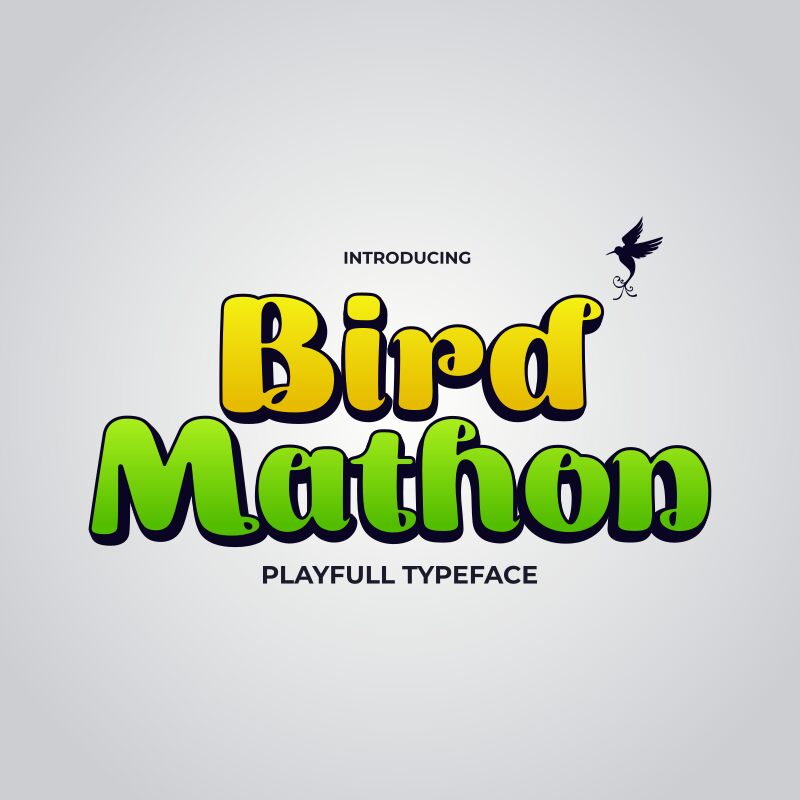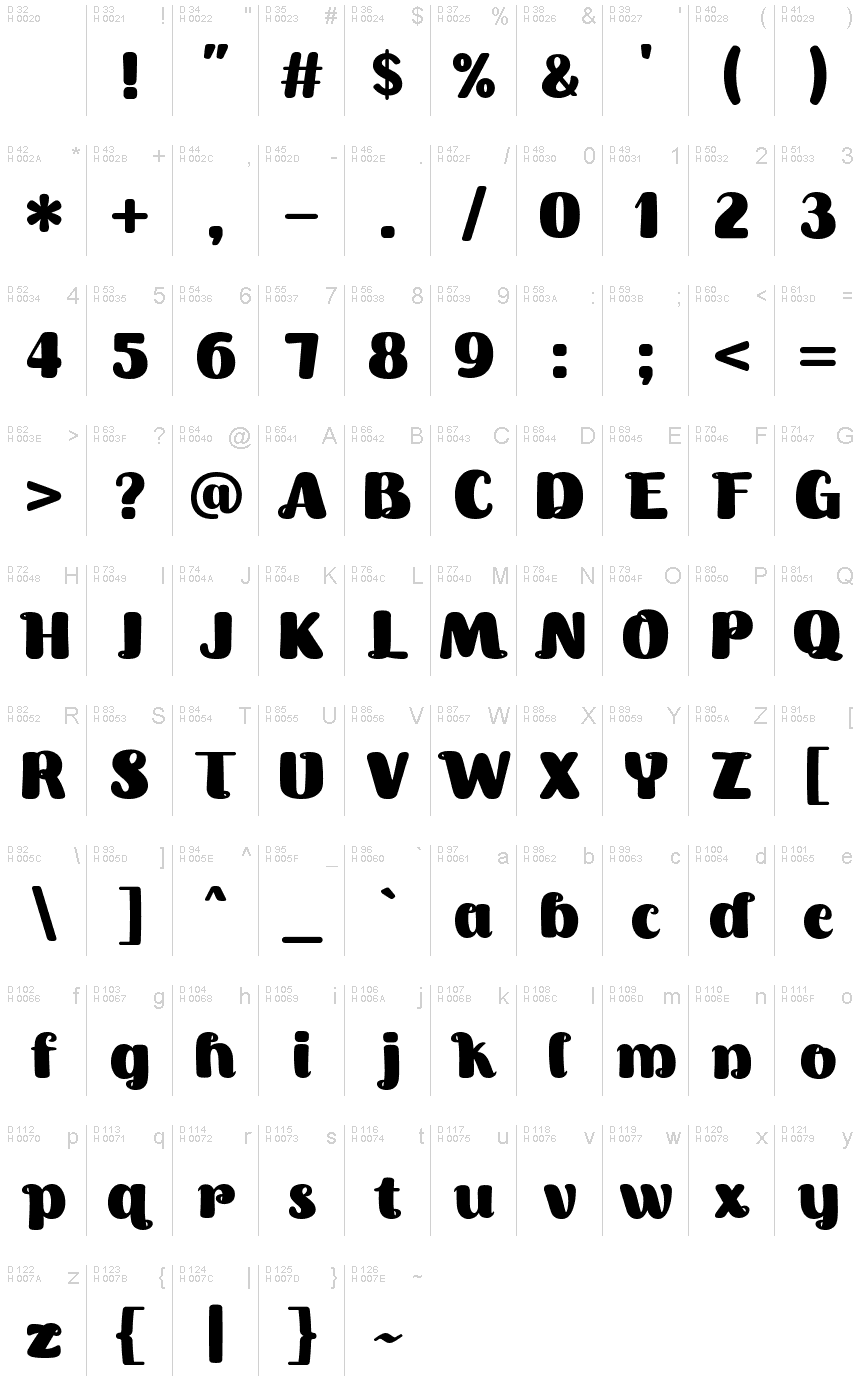
Birdmathon Regular
Birdmathon, a playful and curly display font designed by Antropody Signature, is here to capture your imagination. With its extra-bold weight and semi-expanded width, this font is perfect for projects that demand attention and creativity.
Let Birdmathon bring your logo designs to life, make your branding stand out, create eye-catching greeting cards, or add flair to your packaging designs. Want to create stunning posters? Birdmathon has got you covered too. This versatile font supports multilingual characters and standard ligatures, ensuring that no matter the language, your message will shine through.